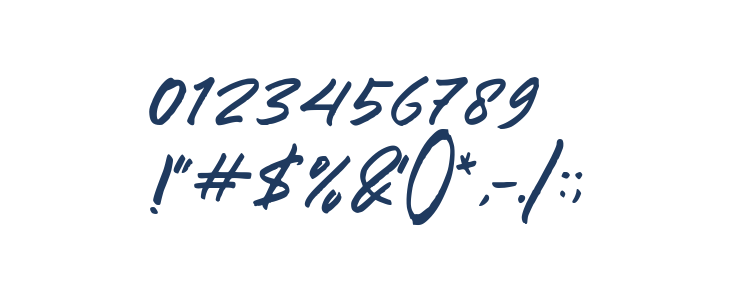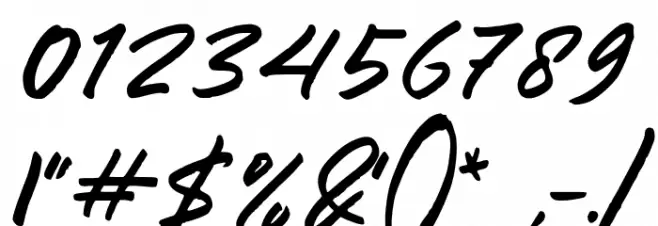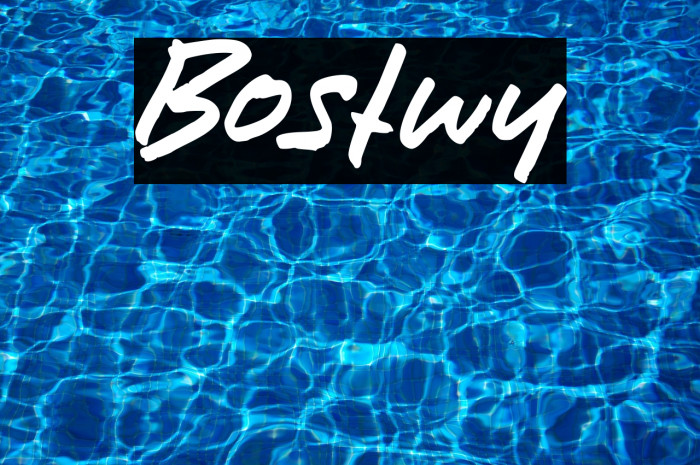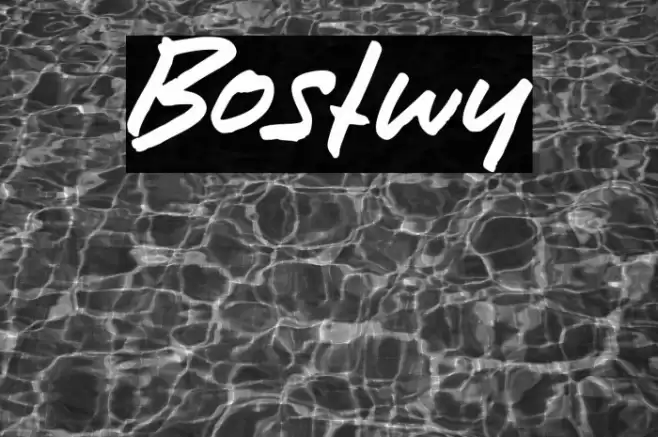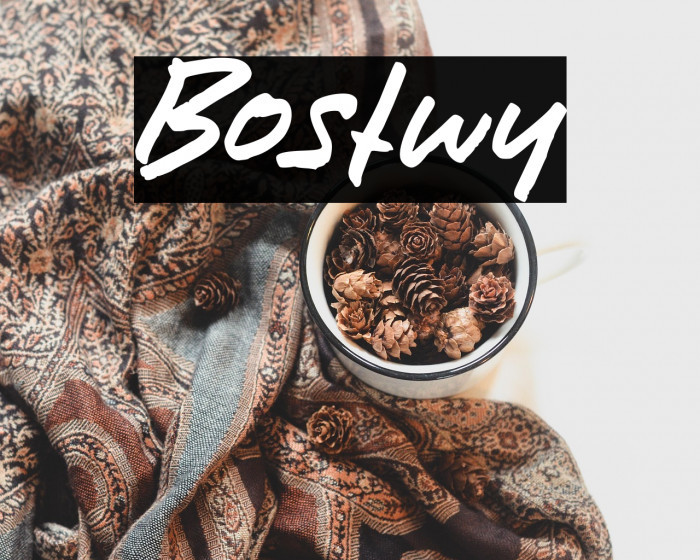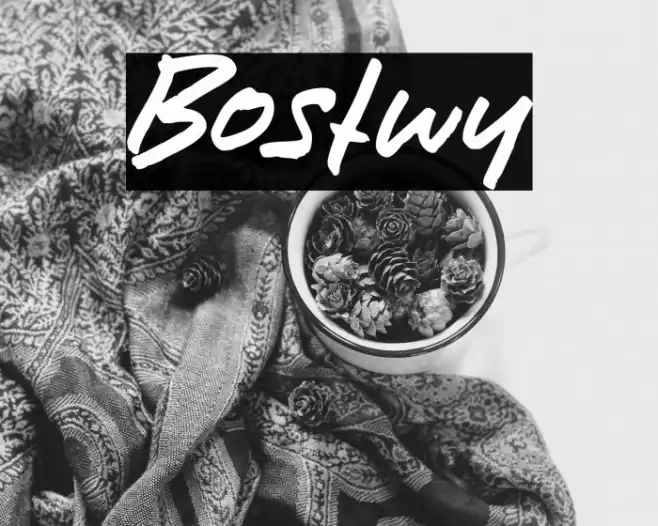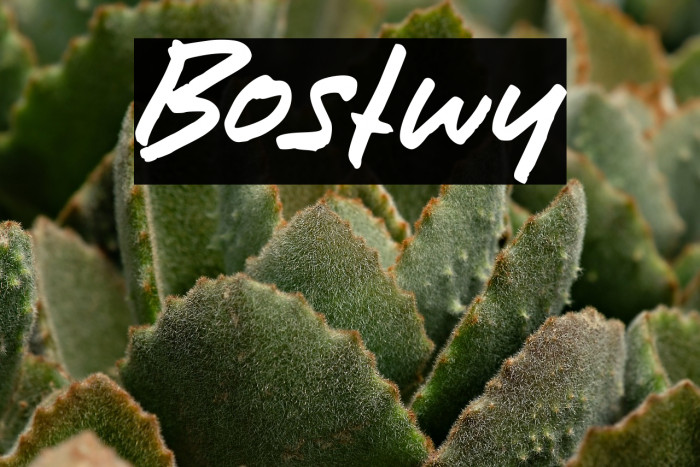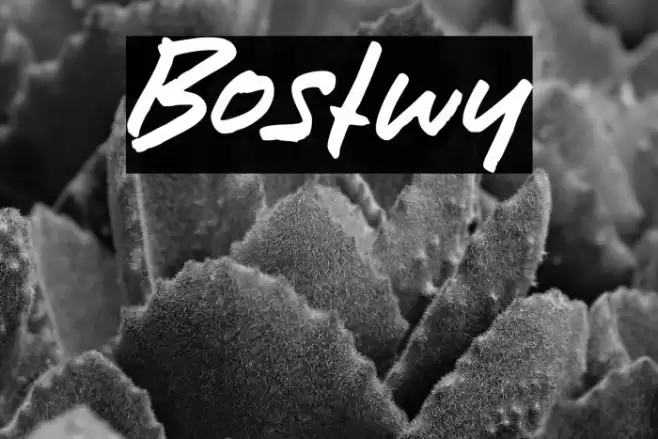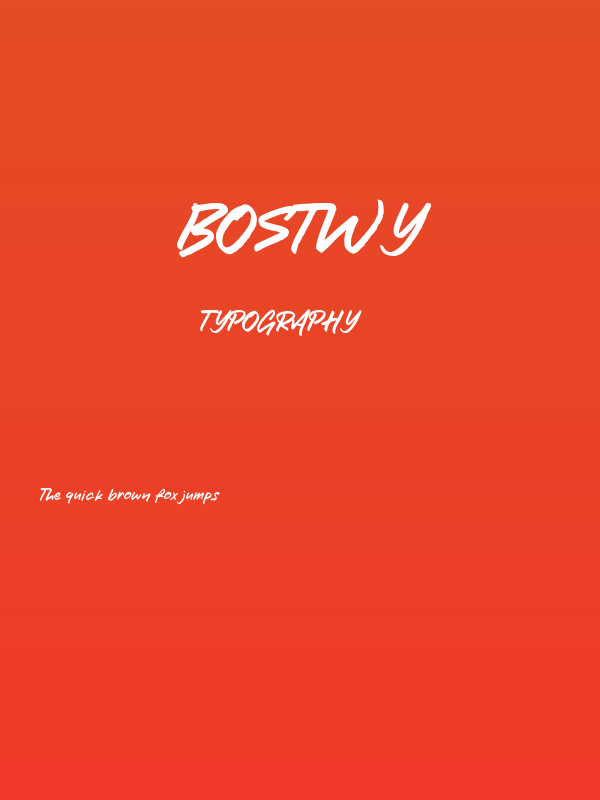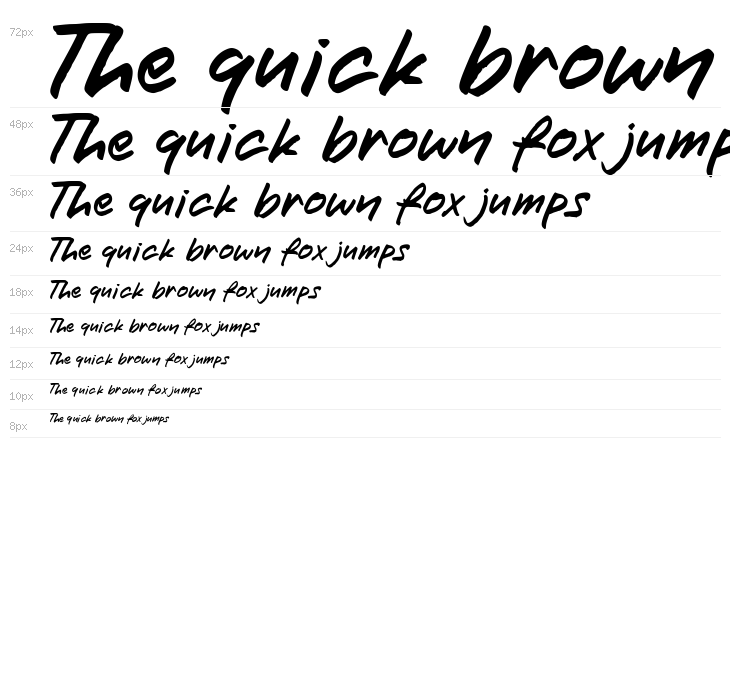
Bostwy Font
Bostwy Description
This font features a lively and dynamic handwritten style, characterized by its fluid and cursive strokes. The letters are slightly slanted, giving it an informal yet elegant appearance. The uppercase and lowercase letters maintain a consistent flow, with rounded edges and smooth curves that enhance its readability. The numerals and special characters are crafted with the same energetic flair, making them blend seamlessly with the alphabet. This font exudes a personal touch, reminiscent of casual handwriting, making it suitable for projects that require a warm and approachable feel.
| Use Case | Headlines, Logos, Personal projects |
| Proposed Projects | Ideal for greeting cards, invitations, personal branding, and social media graphics. |